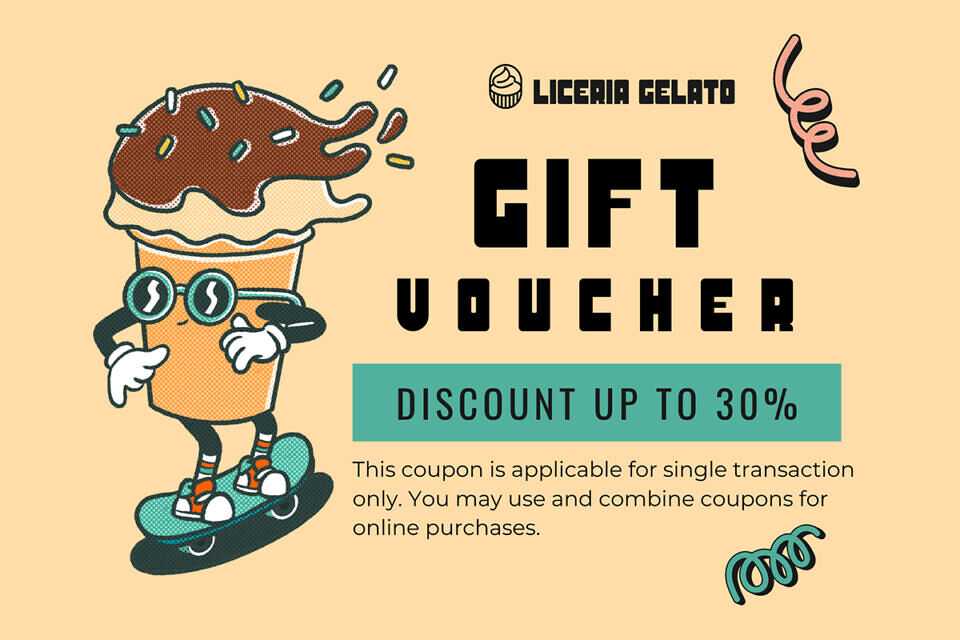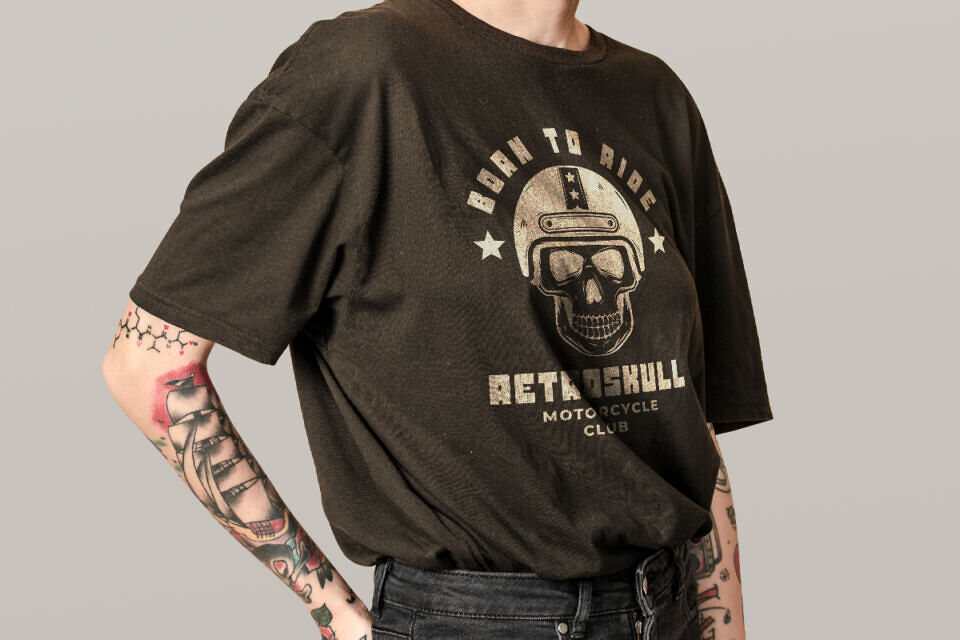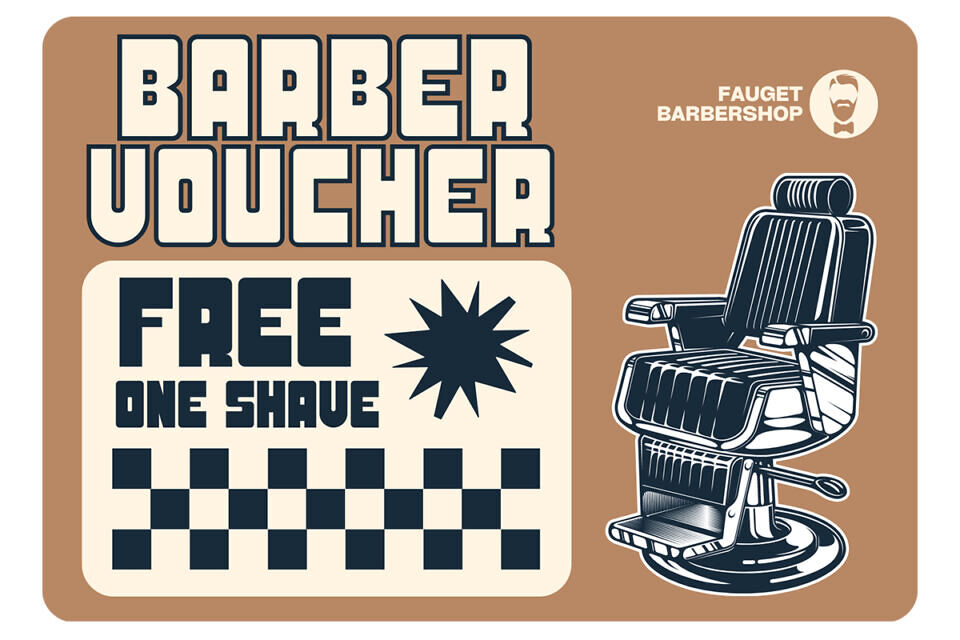
Historical Modern Retro Font provides a new look that is different from the general display fonts. This font carries a vintage, simple, and upright feel. It can also use as a bold and modern font.
Historical Modern Retro Font has many matches when combined with the product. Fashion brand tags such as clothing will work well with this typeface. There is no need to add excessive pictures and ornaments because the Historical Modern Retro Font has presented its identity where a simple yet classic impression radiates.
This font can use as a title that appears first in intro videos that catch the viewer’s attention at a first impression. Posters and magazine cover work especially well when using the Historical Modern Retro Font.